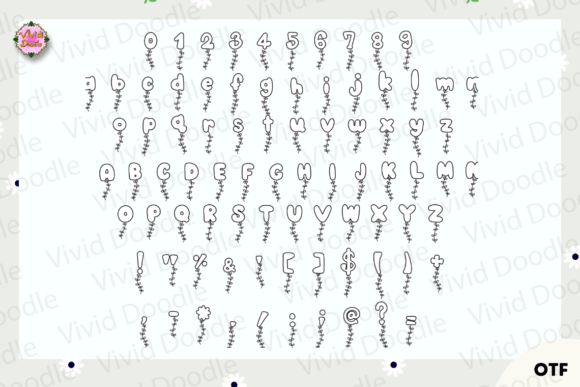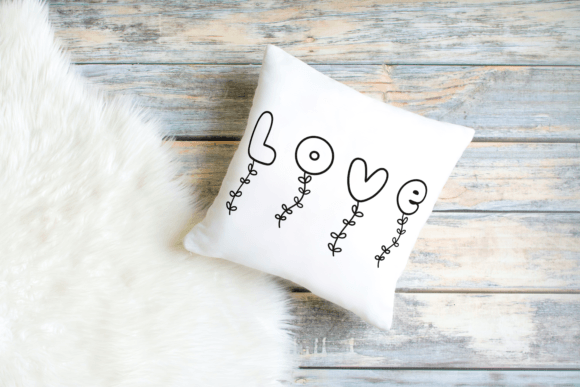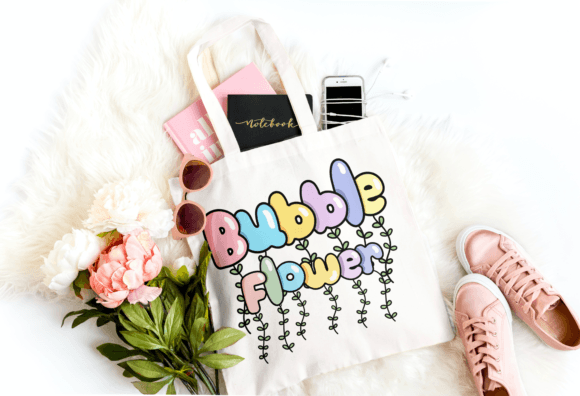
Bubble Flowers Font: A Festive and Versatile Addition to Your Design Collection
Are you looking for a unique and eye-catching font to add a touch of festive cheer to your designs? Look no further than the Bubble Flowers Font, a newly crafted, hand-lettered font that’s perfect for the holiday season and beyond. In this article, we’ll dive into the details of this enchanting font, exploring its features, benefits, and uses, as well as provide tips on how to make the most of it in your designs.
A Festive Font with a Personal Touch
Bubble Flowers Font is a one-of-a-kind, hand-lettered font that’s been carefully crafted to capture the warm joy and magic of the festive season. Its unique, bubbly letters are designed to evoke a sense of merriment and celebration, making it the perfect addition to any holiday-themed project. Whether you’re creating Christmas cards, gift tags, or social media graphics, this font is sure to add a touch of personality and whimsy to your designs.
While Bubble Flowers Font is specifically designed for the holiday season, its versatility makes it suitable for a wide range of projects and applications. From party invitations and decorations to branding and packaging, this font can be used to add a touch of festive flair to any design. Its adaptability also makes it a great choice for designers and crafters who want to create unique and eye-catching projects that stand out from the crowd.
Key Features of Bubble Flowers Font
• Hand-lettered with love: Each letter has been carefully crafted by hand to ensure a unique and personal touch.
• Festive and fun: The font’s bubbly letters are designed to evoke a sense of merriment and celebration.
• Versatile and adaptable: Suitable for a wide range of projects and applications, from holiday-themed designs to everyday creations.
• Easy to use: Compatible with most design software, making it easy to integrate into your workflow.
• Exclusive and unique: A one-of-a-kind font that’s sure to make your designs stand out.
Tips for Using Bubble Flowers Font
To get the most out of Bubble Flowers Font, here are a few tips to keep in mind:
• Experiment with colors: The font’s playful letters look great in bold, bright colors, so don’t be afraid to get creative with your color palette.
• Mix and match: Combine Bubble Flowers Font with other fonts and design elements to create unique and eye-catching compositions.
• Use it for headlines and titles: The font’s bold, playful letters make it perfect for headlines and titles, adding a touch of festive flair to your designs.
• Add some sparkle: Use the font in conjunction with glitter, snowflakes, or other festive design elements to create a truly magical design.
Who Can Benefit from Bubble Flowers Font?
Bubble Flowers Font is perfect for:
• Graphic designers: Looking for a unique and eye-catching font to add to their collection.
• Crafters: Creating handmade cards, gift tags, and other paper crafts.
• Small business owners: Wanting to add a touch of festive flair to their branding and marketing materials.
• Social media enthusiasts: Looking for a fun and playful font to use in their social media graphics.
Bubble Flowers Font is a unique and enchanting addition to any design collection. Its festive, hand-lettered letters are sure to add a touch of merriment and joy to any project, making it perfect for the holiday season and beyond. With its versatility, adaptability, and ease of use, this font is a must-have for designers, crafters, and small business owners looking to create eye-catching and engaging designs. So why wait? Get ready to experience the merriment of the season with Bubble Flowers Font!